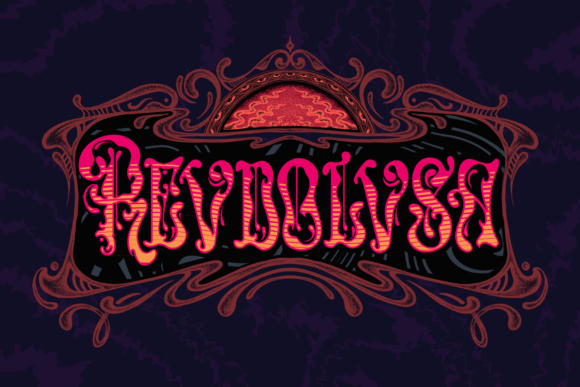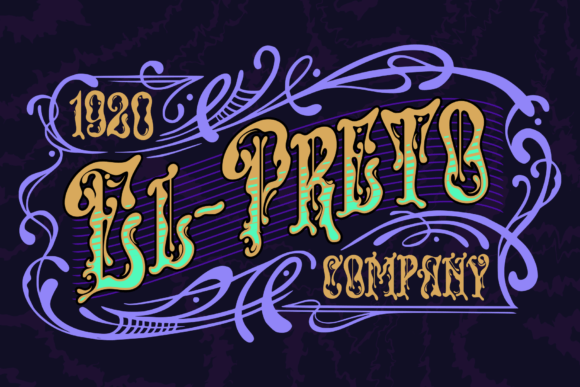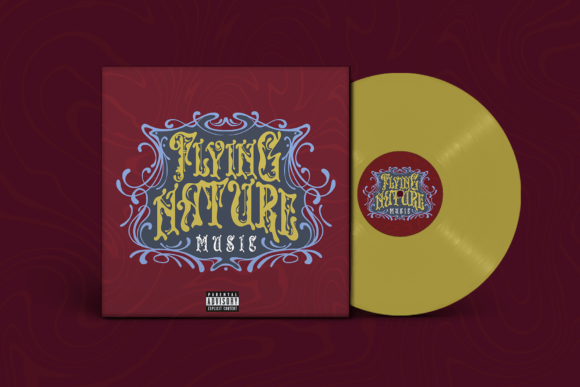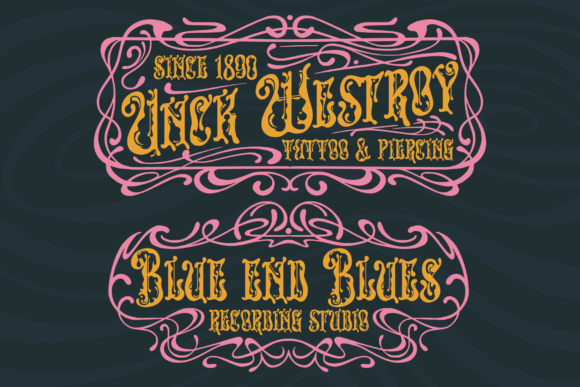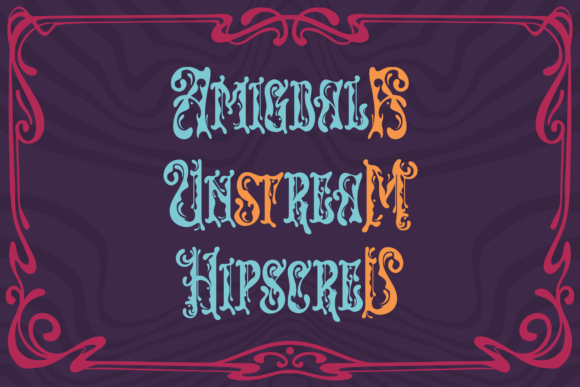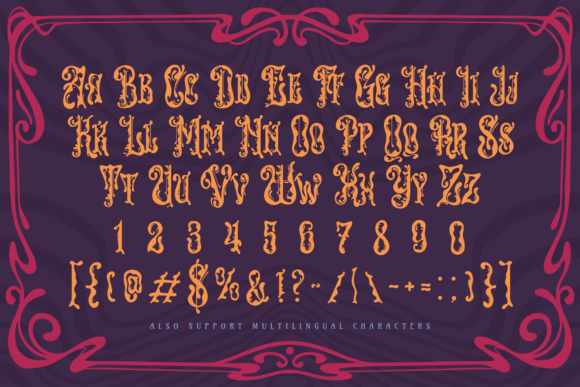
The Trippy Charm of Alea Weiqsaw Font: A Designer’s Delight
I still remember the design project that led me to discover Alea Weiqsaw Font. I was working on a vintage-style album cover for a client’s music project, and I was struggling to find the perfect font that captured the essence of the 1960s psychedelic art movement. The client wanted something unique, trippy, and eye-catching. After hours of searching, I stumbled upon Alea Weiqsaw Font, and it was love at first sight! ✨
An Honest Review of Alea Weiqsaw Font
- ✨ Unique trippy style that’s perfect for headlines, packaging designs, and vintage-style logotypes
- ✅ Inspired by the Victorian era, art nouveau, psychedelic art, and music, making it a versatile font for various design projects
- ✅ Highly legible, even in larger font sizes, making it perfect for display purposes
While Alea Weiqsaw Font is an amazing font, there are a few quirks to be aware of: 🤔
- ⚠️ Limited use of lowercase letters, which might not be ideal for body text
- ⚠️ Some users might find the font a bit too ornate for certain design projects
A Practical Guide to Using Alea Weiqsaw Font
- Experiment with OpenType features, such as glyphs and stylistic alternates, to add more character to your design
The Designer Inspiration Behind Alea Weiqsaw Font
Alea Weiqsaw Font was inspired by the designer’s love for the Victorian era, art nouveau, psychedelic art, and music. The font’s unique trippy style is a nod to the creative experimentation of the 1960s. The designer aimed to create a font that would capture the essence of this era while being functional and versatile. 🎨
| Font Name | Alea Weiqsaw Font |
| Author | sitintahitam |
Q: What is Alea Weiqsaw Font inspired by?
A: Alea Weiqsaw Font is inspired by the Victorian era, art nouveau, psychedelic art, and music.
Q: What is Alea Weiqsaw Font best used for?
A: Alea Weiqsaw Font is best used for headlines, packaging designs, and vintage-style logotypes.
Q: Is Alea Weiqsaw Font suitable for body text?
A: While Alea Weiqsaw Font is highly legible, it’s not ideal for body text due to its ornate style and limited use of lowercase letters.